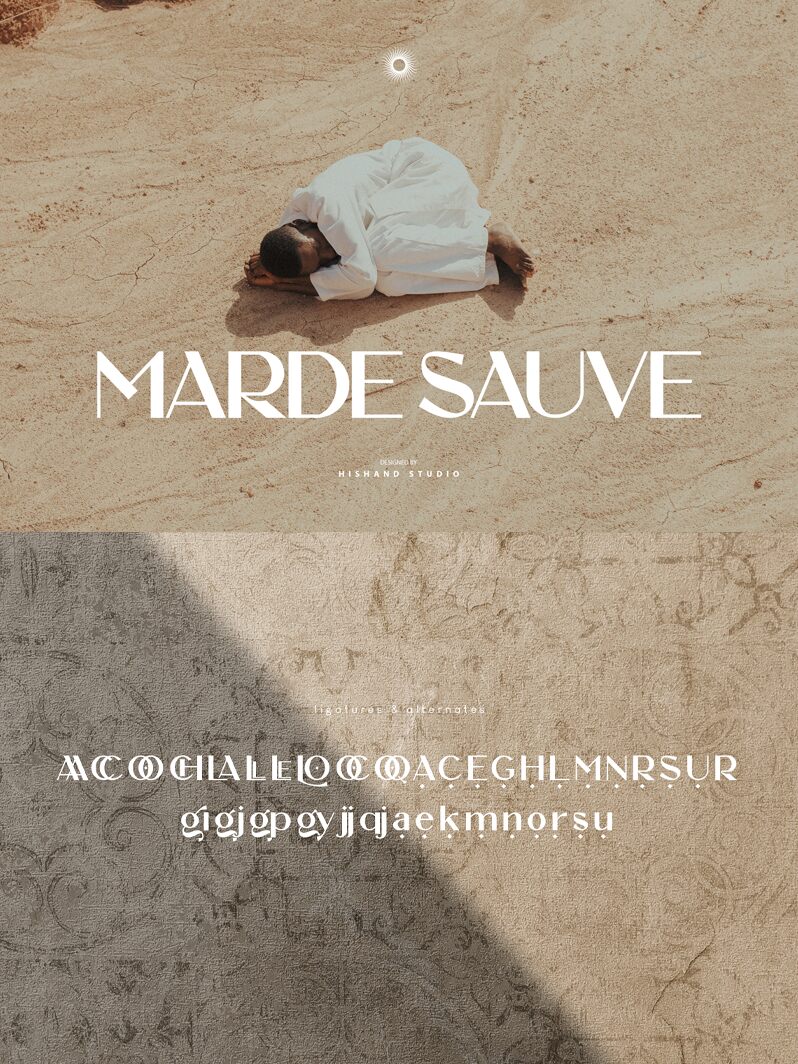
Marde Sauve is a captivating font that exudes a timeless elegance. Crafted by Hishand Studio, its bold, geometric letterforms command attention, effortlessly blending modern sensibilities with a touch of vintage charm. The striking horizontal striations running through each character create a sense of depth and movement, lending the font an arresting visual appeal.
Marde Sauve's versatility shines through, making it a versatile choice for a wide range of design applications. From sleek and sophisticated branding to eye-catching headlines, this font possesses the versatility to elevate any project with its refined, yet impactful aesthetic. Its bold presence commands attention, making it an excellent selection for logos, editorial layouts, and attention-grabbing typographic compositions.
MARDE SAUVE
Hishand Studio